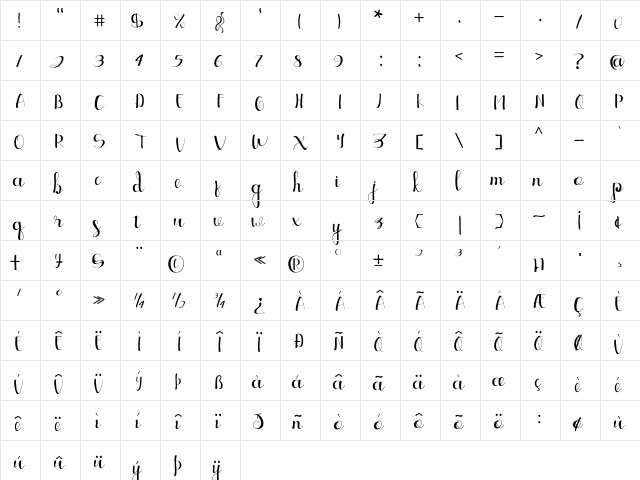
Ellic Script Regular
| Foundry | Bexxtype/syahputra |
| Designer | Syahputra/Bexxtype |
Design Context for Ellic Script Typeface
Ellic Script brings a calligraphic fluidity to the page — its connecting strokes and expressive curves give it an unmistakably human quality.
Font Pairing: Combine Ellic Script with a simple geometric sans for maximum contrast — the tension between flowing curves and clean structure is a classic typographic pairing.
Pro Tip: Pair Ellic Script with a clean sans-serif for supporting text. The contrast between fluid script and geometric structure creates an elegant typographic hierarchy.